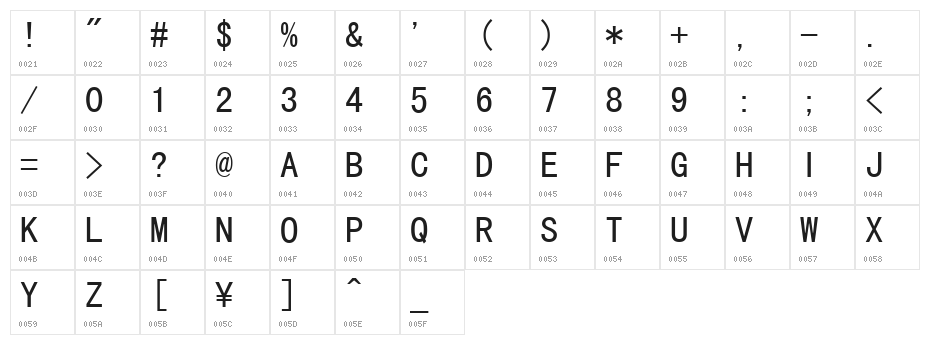
MS Gothic Font
MS Gothic Description
This font is a clean and straightforward sans-serif typeface characterized by its uniform stroke width and geometric shapes. The letters are well-proportioned, with a modern and minimalist aesthetic that makes it highly legible. The uppercase and lowercase letters maintain a consistent style, with slightly rounded edges that soften the overall appearance. The numerals are clear and distinct, ensuring readability in various contexts. Special characters are designed to blend seamlessly with the alphabet, maintaining the font's cohesive look. This typeface is versatile, suitable for both digital and print media, and works well in a variety of design applications.
| Use Case | Headlines, Body text, Logos |
| Proposed Projects | Ideal for web design, user interfaces, corporate branding, and signage. |